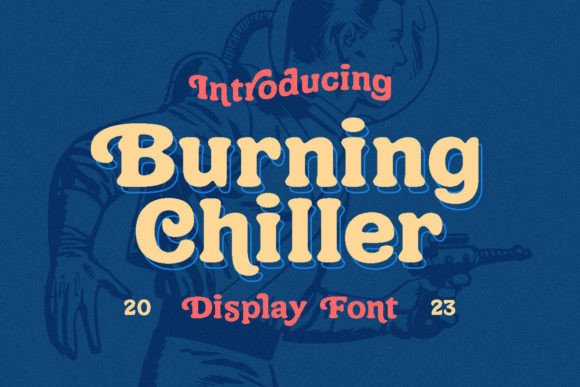
Introducing Burning Chiller: The Ultimate 90s-Inspired Font for Your Design Needs
Are you ready to take a trip down memory lane and relive the radical vibes of the 1990s? Look no further than Burning Chiller, a playful typeface that embodies the spirit of this iconic era. In this article, we’ll dive into the world of Burning Chiller, exploring its retro charm, versatility, and the exciting possibilities it offers for designers and crafters alike.
The Retro Revival: Burning Chiller’s 90s Inspiration
Burning Chiller is more than just a font – it’s a time capsule of the 1990s, a decade that celebrated self-expression, creativity, and fun. This typeface is inspired by the bold, colorful, and playful aesthetic of the era, with its chunky lines, irregular shapes, and carefree attitude. Whether you’re a 90s kid or just a fan of the decade’s design, Burning Chiller is sure to transport you back to a time of grunge music, high-waisted jeans, and radical graphics.
A sample of the Burning Chiller font in action
Exploring the Versatility of Burning Chiller
One of the most exciting aspects of Burning Chiller is its versatility. This font is not just limited to digital designs; it’s also perfect for crafters, makers, and anyone who loves to get creative with their hands. Imagine using Burning Chiller to create:
- Eye-catching posters, flyers, and brochures for your next event or promotion
- Custom t-shirts, hoodies, and accessories for your brand or business
- Unique invitations, cards, and stationery for special occasions
- Quirky labels, stickers, and decals for your products or packaging
Adding an Extra Touch: Cartoon Illustration
To take your designs to the next level, we’ve included a delightful cartoon illustration that perfectly complements the Burning Chiller font. This charming illustration features a stylized character that’s sure to add a touch of whimsy and personality to your creations. Imagine using this illustration to:
- Create custom social media graphics, blog posts, or website headers
- Design engaging presentations, reports, or infographics
- Develop a cohesive brand identity that showcases your personality and style
The accompanying cartoon illustration, ready to enhance your design
Why Designers and Crafters Love Burning Chiller
So, what makes Burning Chiller so special? Here are just a few reasons why designers and crafters are falling in love with this font:
- Retro charm: Burning Chiller captures the essence of the 1990s, making it perfect for designers and crafters who love vintage aesthetics.
- Playful vibe: This font is all about fun and self-expression, making it ideal for projects that require a lighthearted touch.
- Versatility: Burning Chiller can be used for a wide range of applications, from digital designs to handmade crafts.
Get Ready to Ignite Your Designs with Burning Chiller